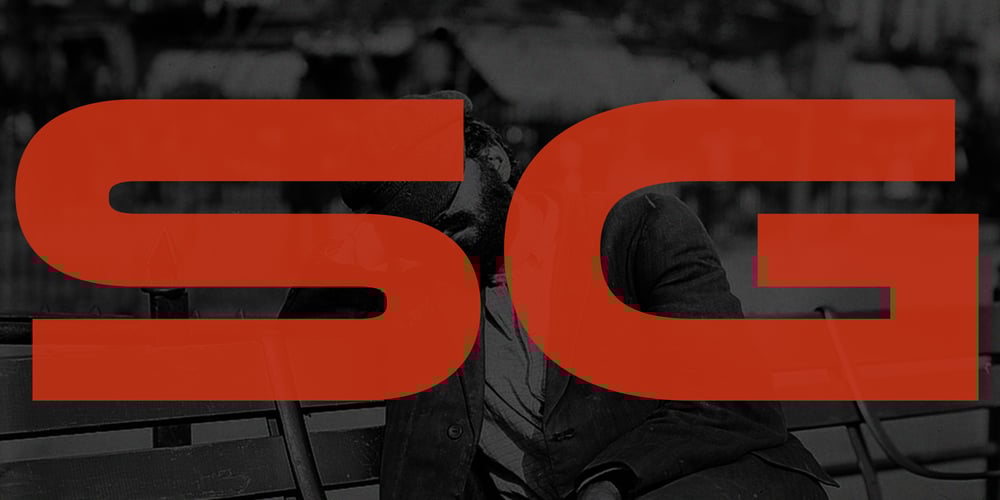
Stereo Gothic
Stereo Gothic font
Stereo Gothic Font Family was designed by Ryoichi Tsunekawa and published by Dharma Type. Stereo Gothic contains 36 styles and family package options. The concept of this font is very simple. Wide and Legible, No decorative, just simple. The variety of weights make your design more flexible.